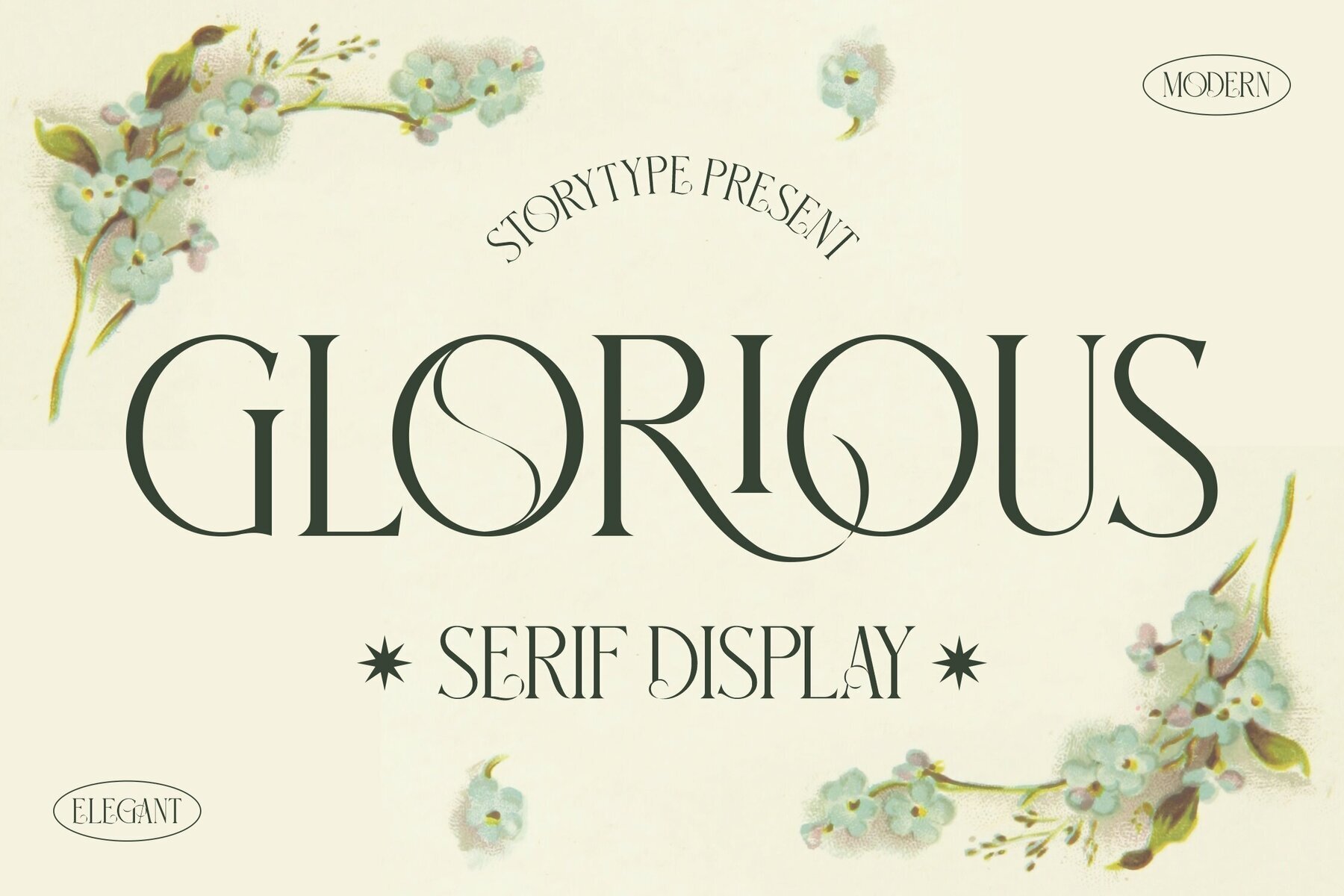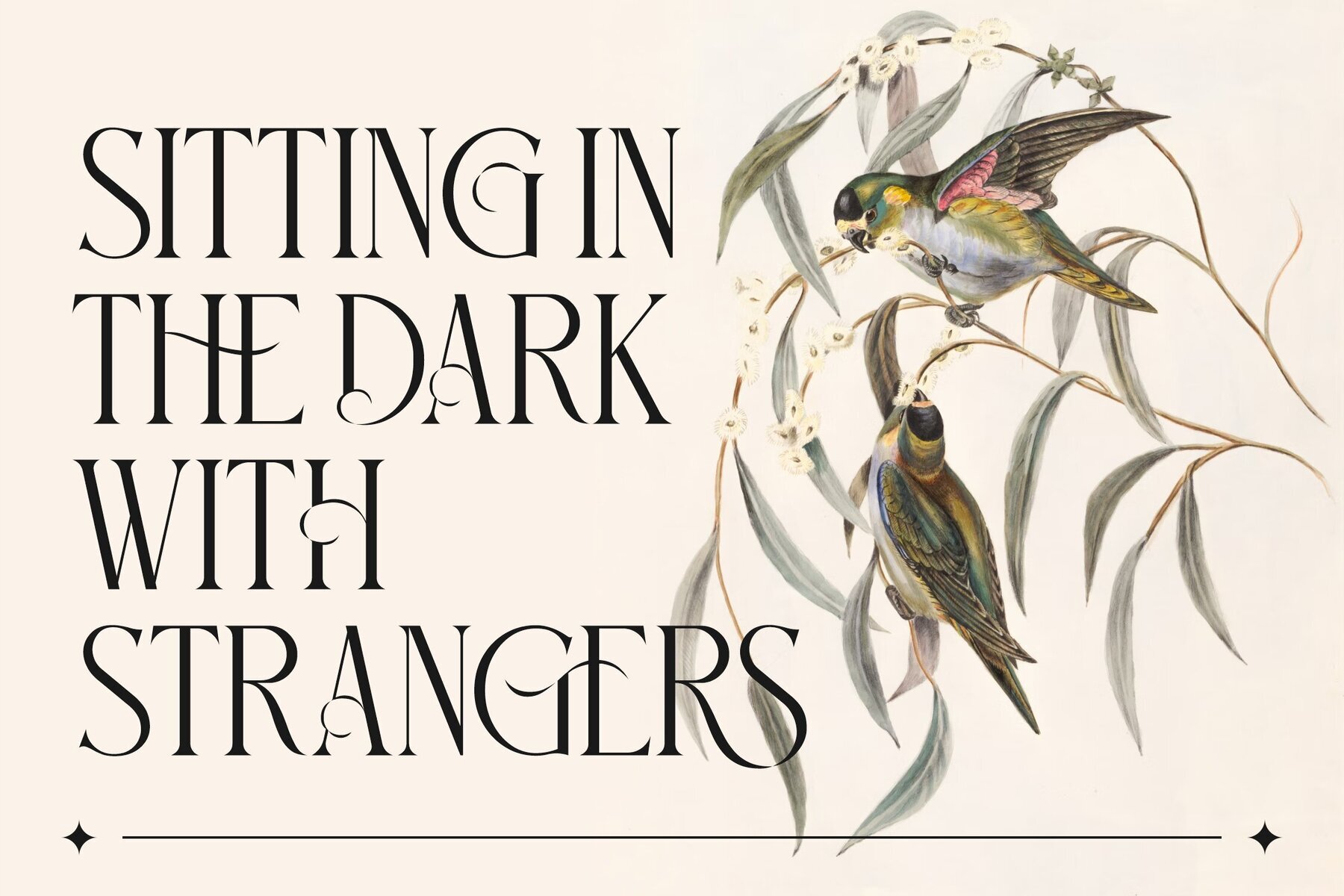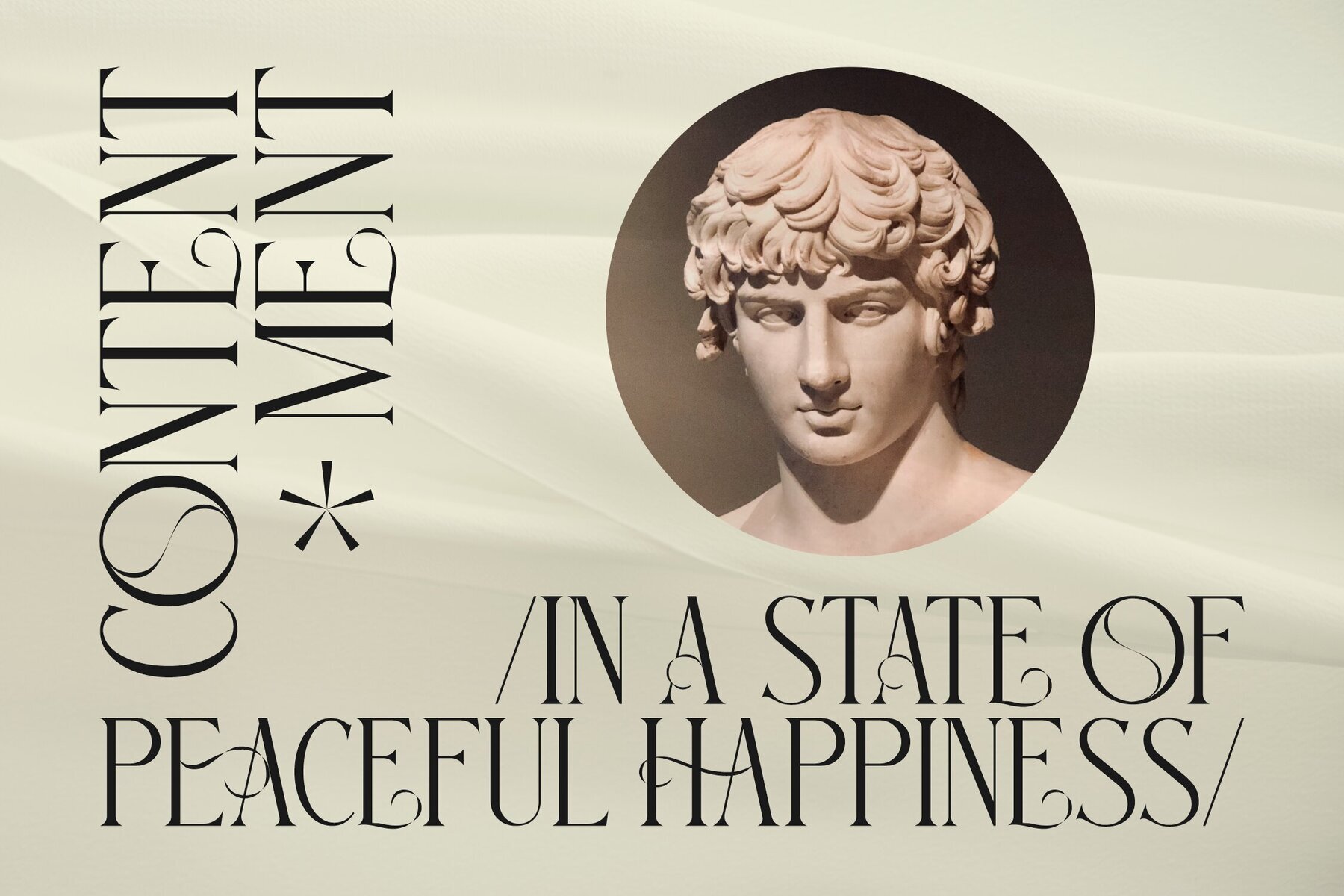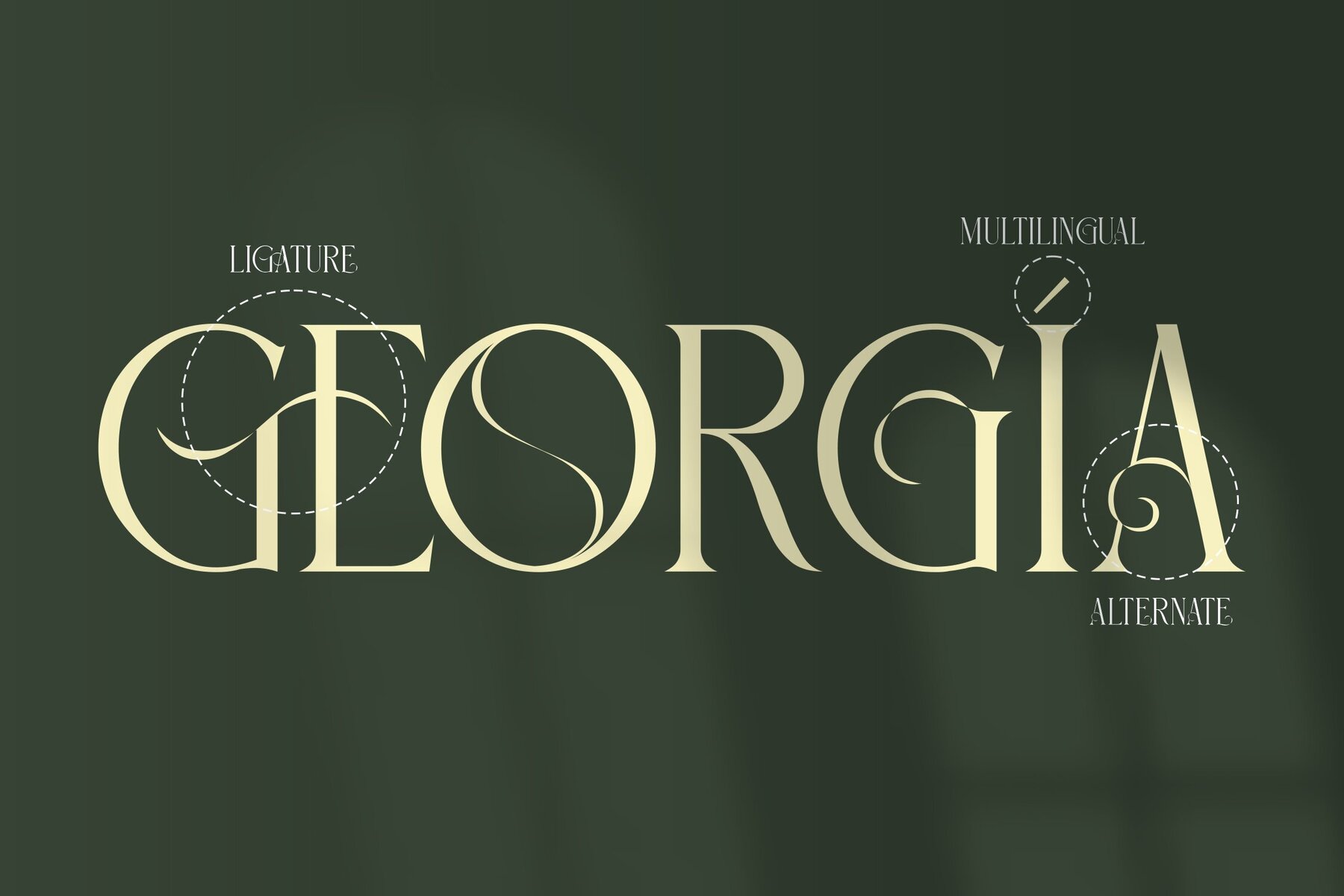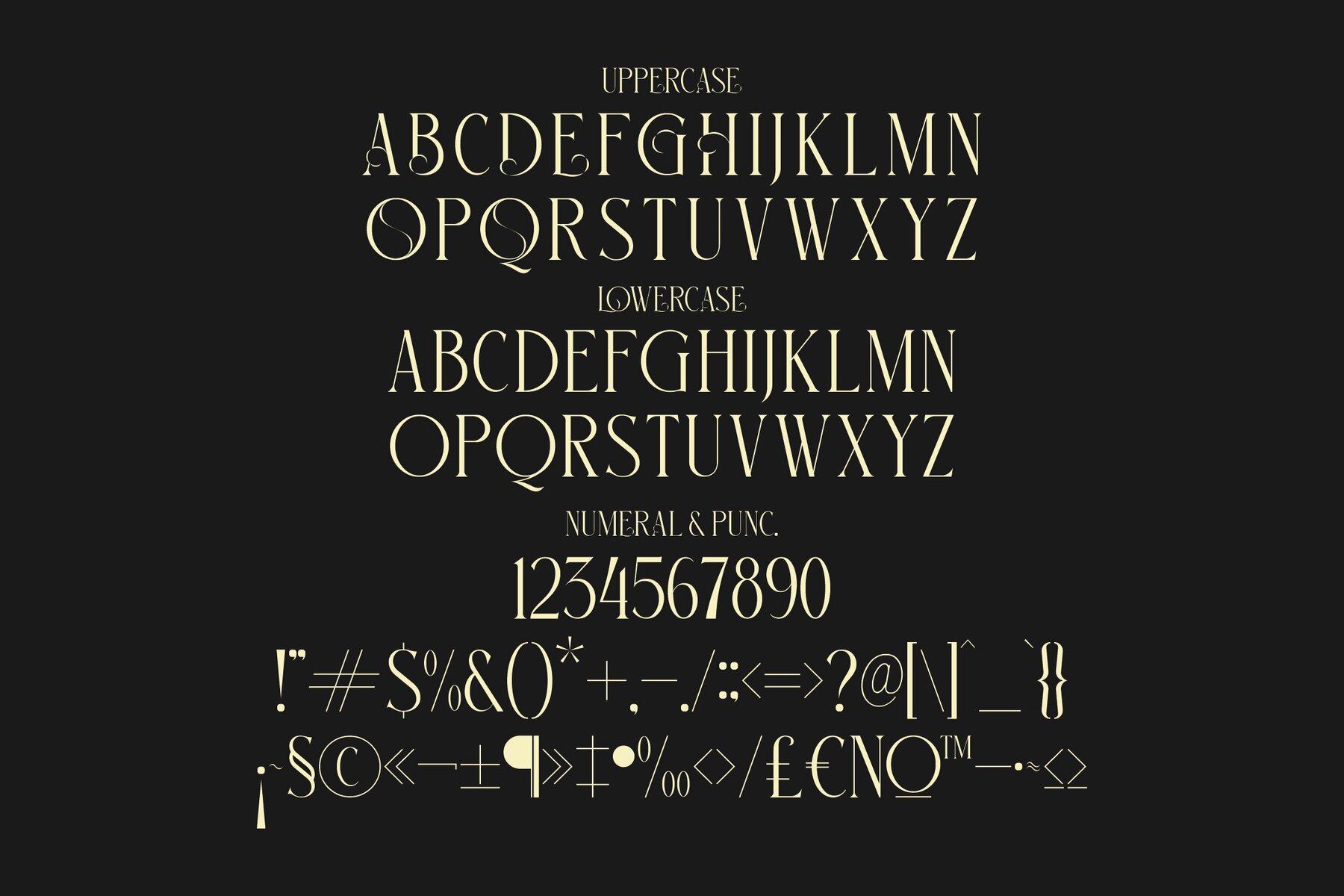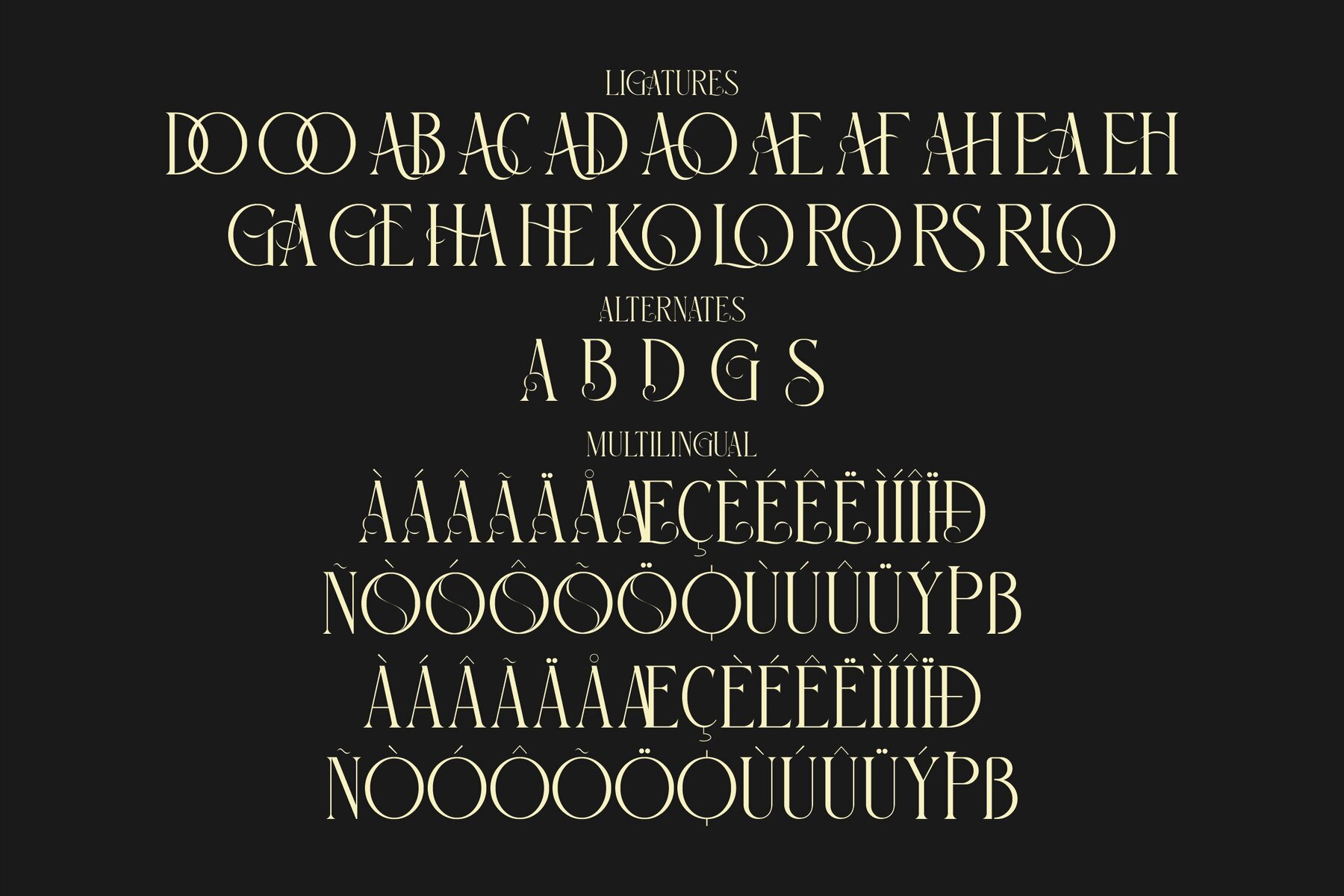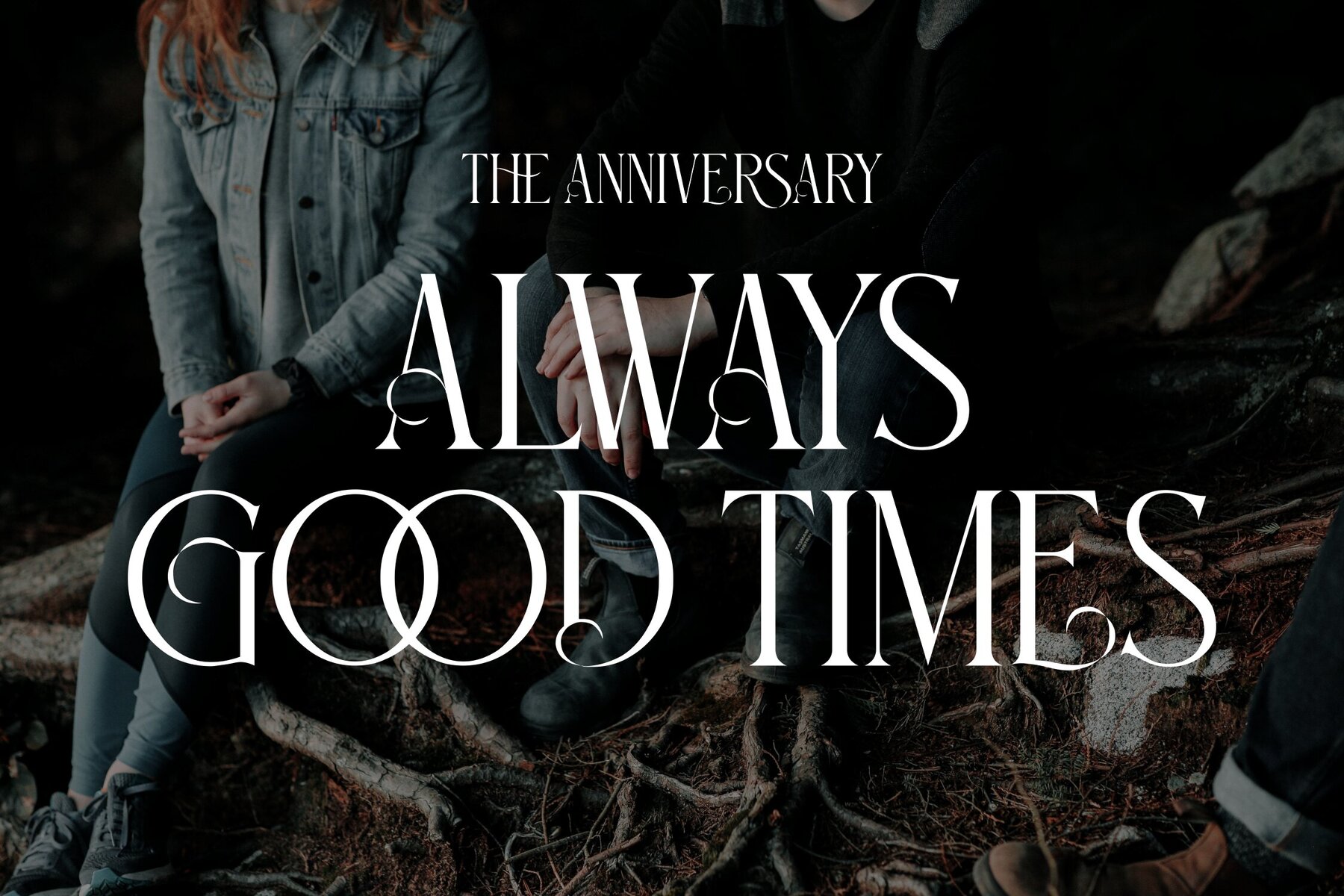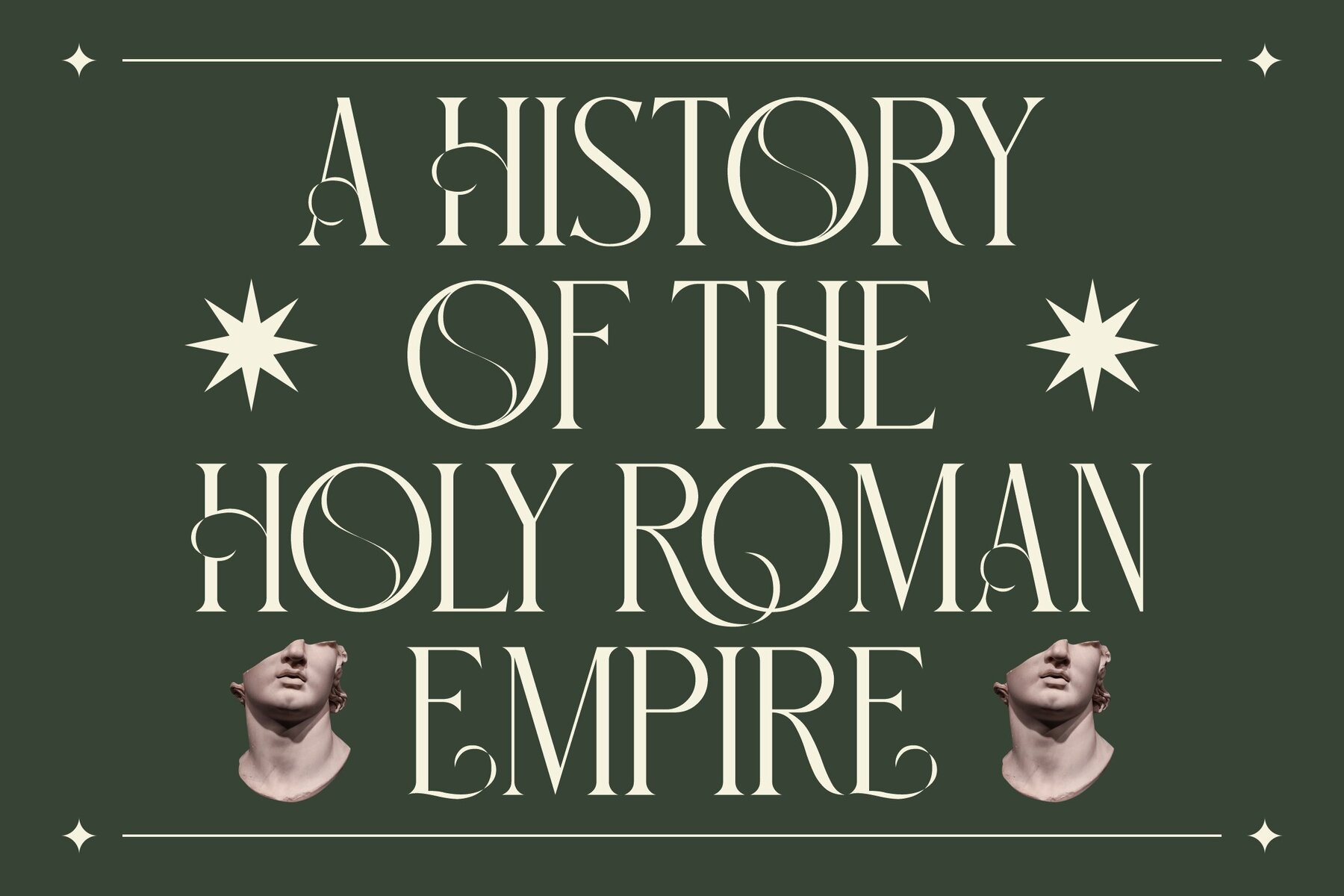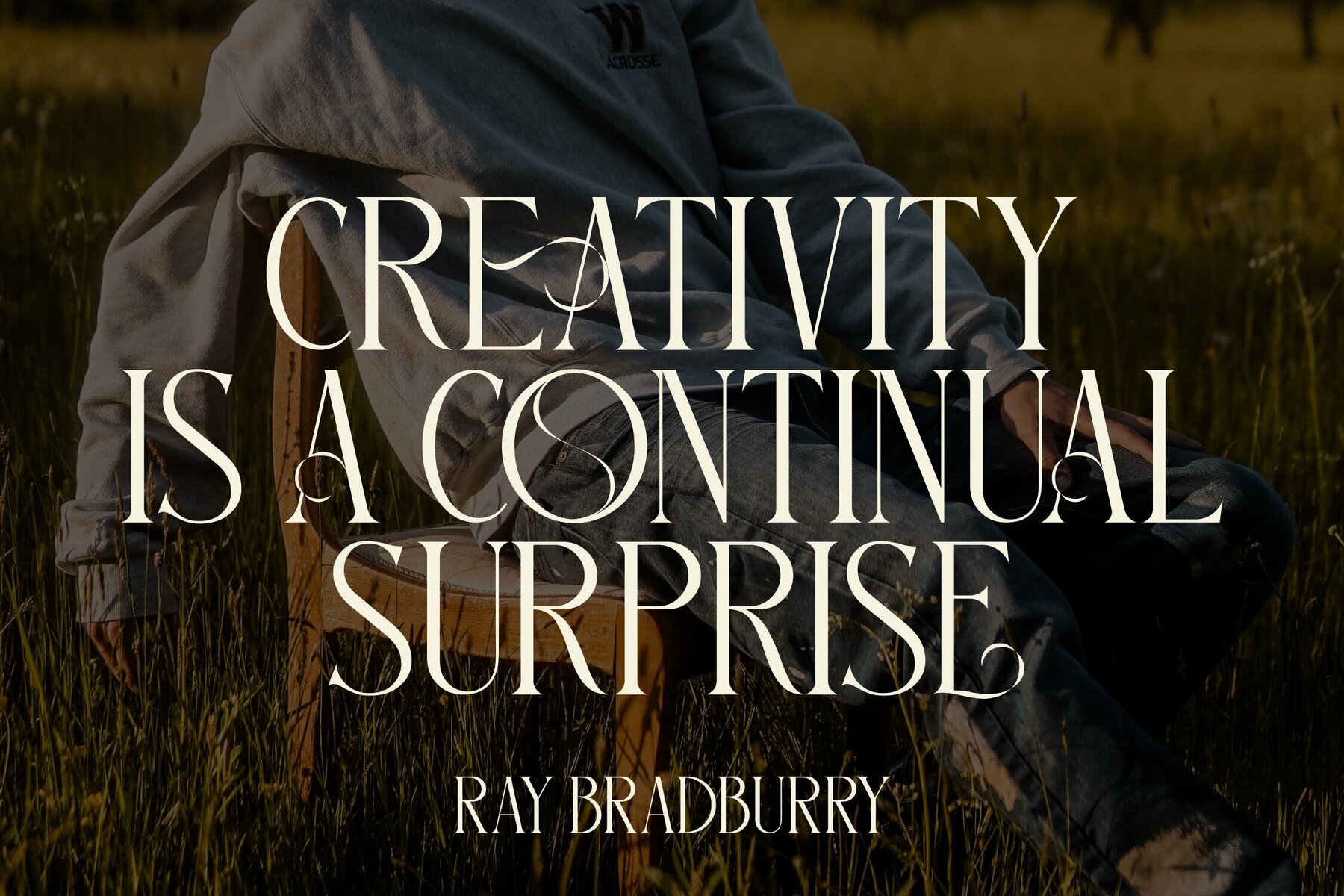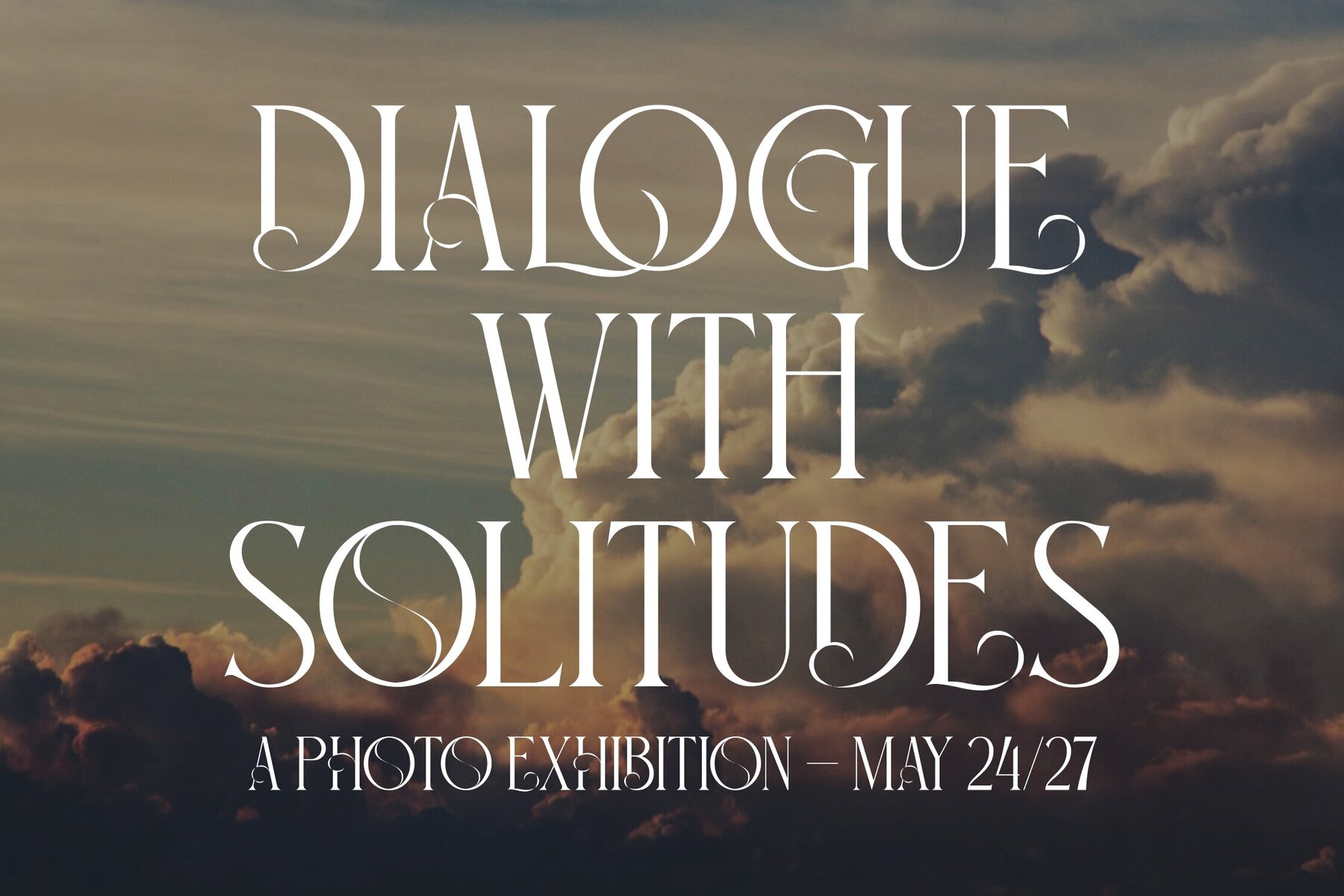
GLORIOUS Font
The Glorious Typeface by Storytype Studio melds timeless sophistication with a contemporary flair, offering a unique serif style that enhances any design project. Perfect for creating elegant and luxurious logos, book or movie titles, fashion brands, magazines, clothing lines, and more, Glorious provides versatility and sophistication.Glorious Typeface: Modern Elegance